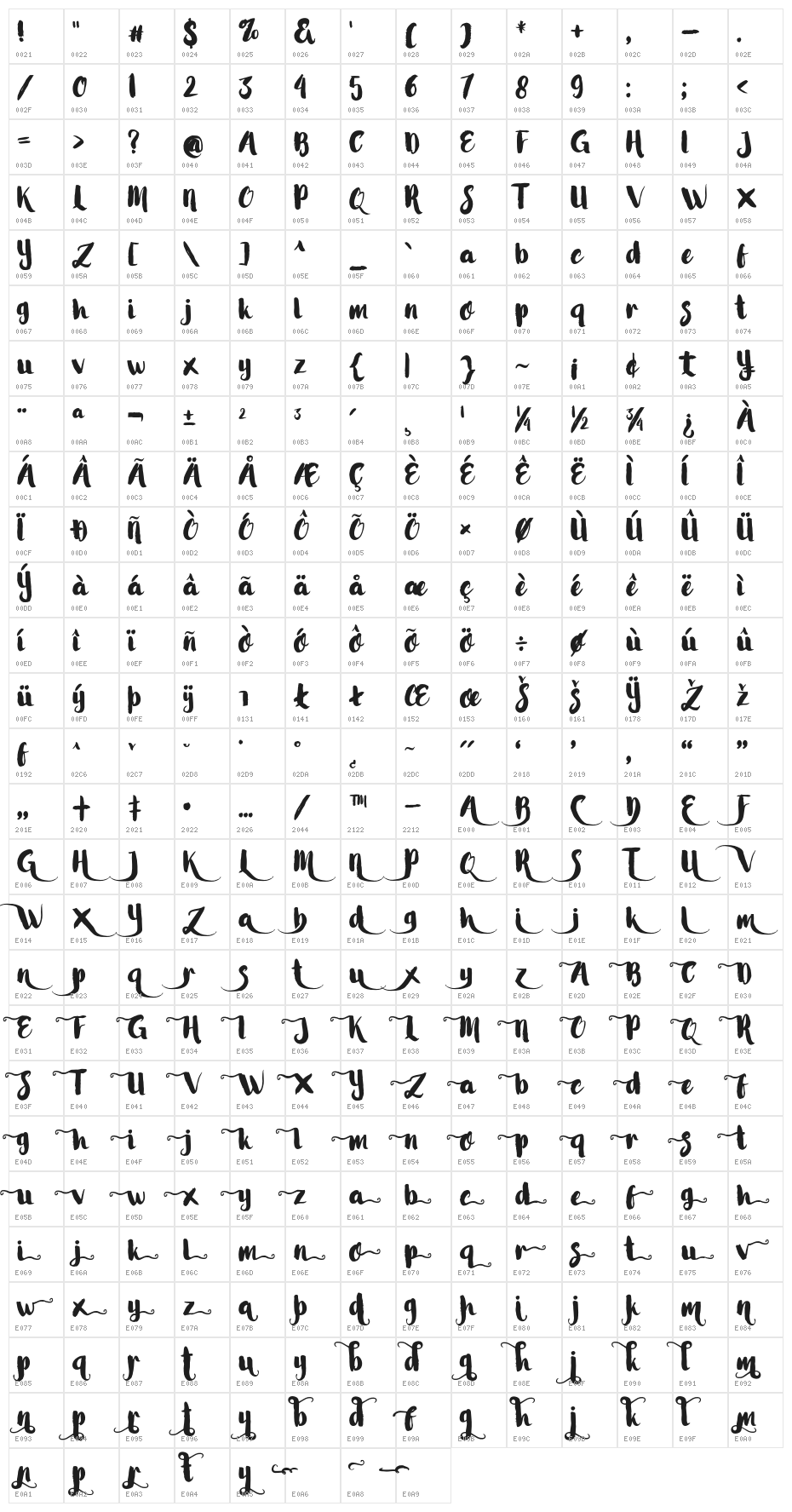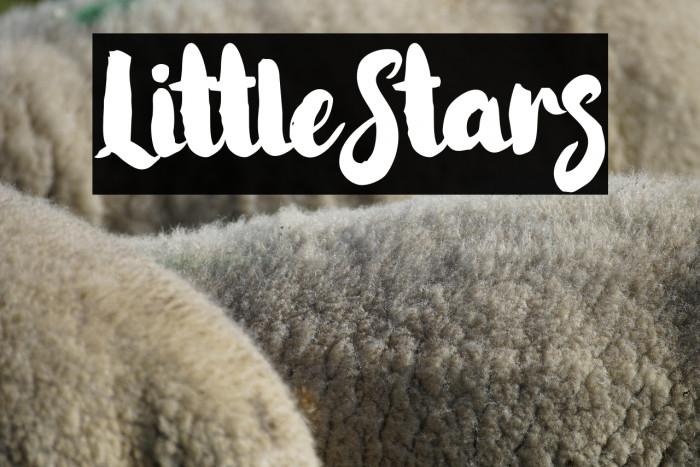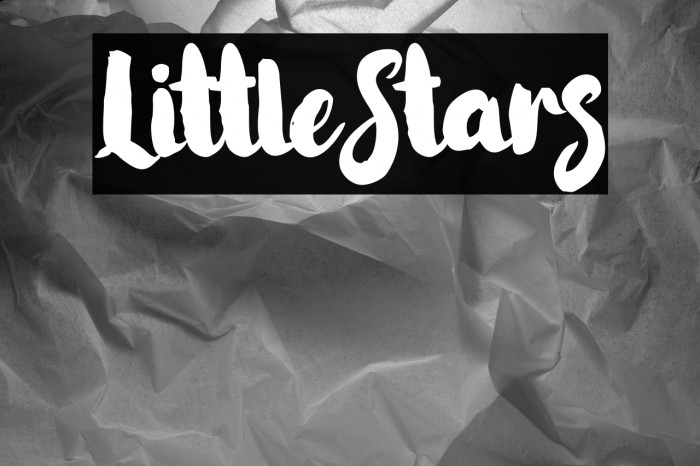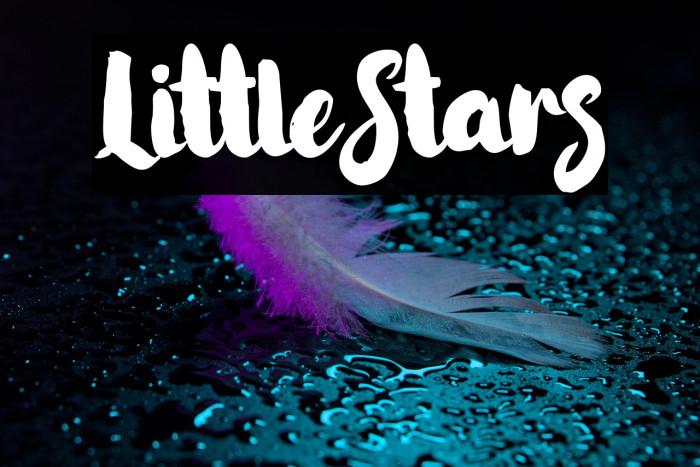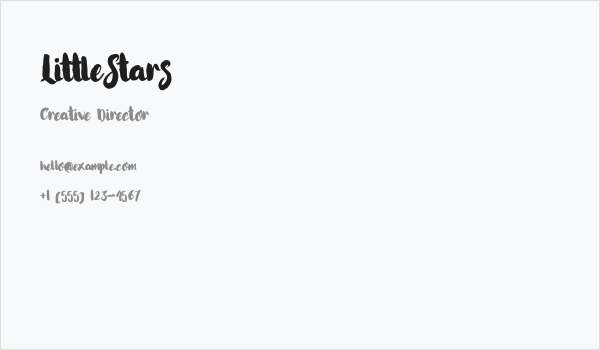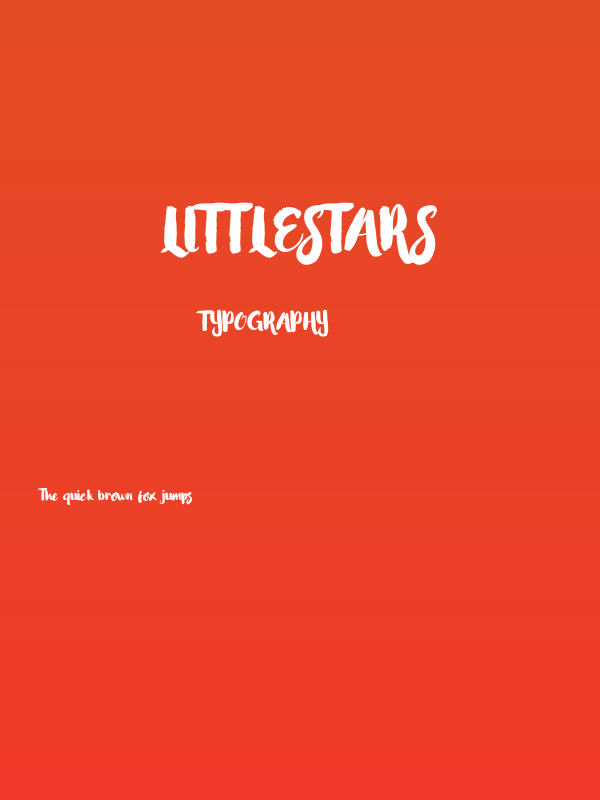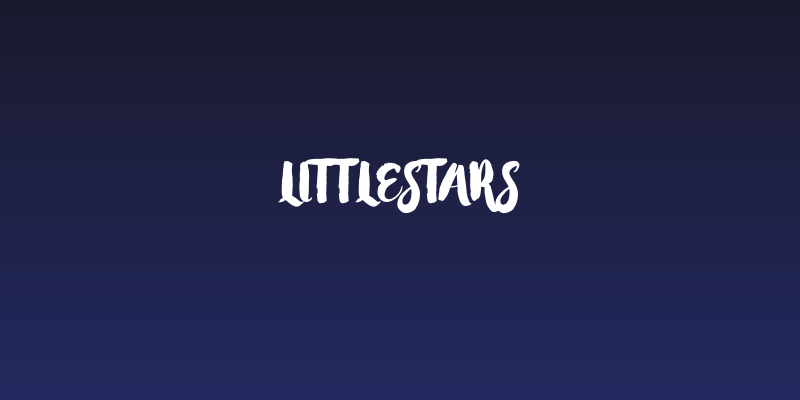
LittleStars Font
LittleStars Description
This font features a bold, brush-like style with a hand-painted appearance. The strokes are thick and expressive, giving it a dynamic and energetic feel. The characters have a slightly irregular shape, adding to the handcrafted aesthetic. The uppercase and lowercase letters maintain a consistent style, with a playful yet sophisticated look. The numbers and special characters are equally bold and maintain the same artistic flair, making the font versatile for various creative applications.
| Proposed Projects | Ideal for branding, posters, invitations, and any project requiring a bold, artistic touch. |